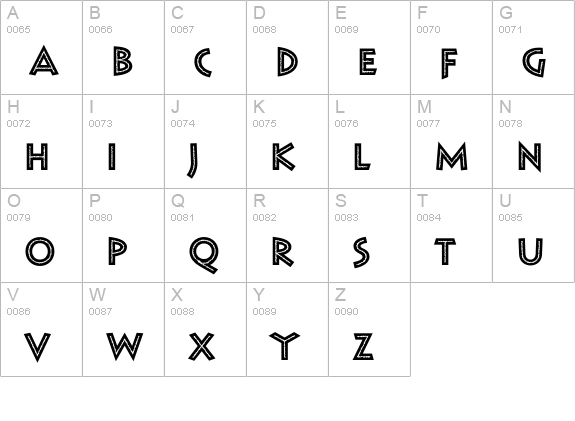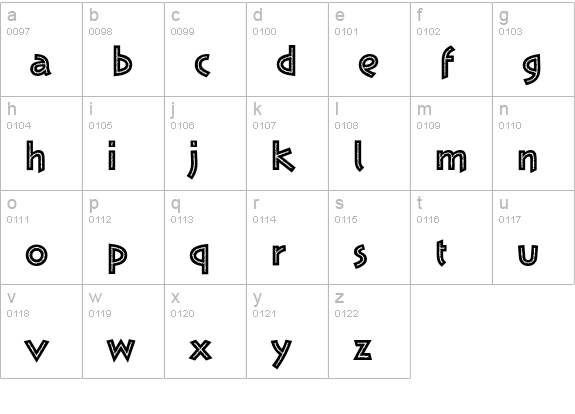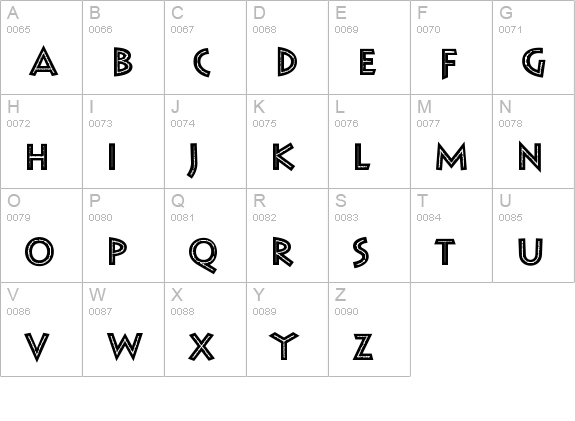
KaffeesatzEF-Suess Font Details
KaffeesatzEF-Suess font is a delightful and charming typeface that exudes a sense of sweetness and warmth. Its rounded letterforms and soft curves make it perfect for adding a touch of playfulness to your designs. Whether you're creating a logo, a poster, or a greeting card, this font is sure to bring a sense of joy and cheerfulness. What makes KaffeesatzEF-Suess font even more appealing is that it is free to download. Yes, you read that right! This font is freely available to download at FontsMarket.com, making it accessible to everyone who wishes to add a touch of sweetness to their projects. With KaffeesatzEF-Suess font, you can easily create eye-catching headlines, captivating titles, or even charming body text that will leave a lasting impression on your audience. Its versatility allows you to use it in a variety of design projects, from branding to packaging and everything in between. When it comes to legibility, KaffeesatzEF-Suess font shines. Its clean and well-defined letterforms ensure that your message is conveyed with clarity and ease. Whether it's on a screen or in print, this font guarantees readability without sacrificing its delightful and inviting aesthetic. So why wait? Dive into the world of KaffeesatzEF-Suess font and bring a touch of sweetness to your designs. Download it for free at FontsMarket.com and start creating captivating and memorable visuals that will leave a lasting impression.